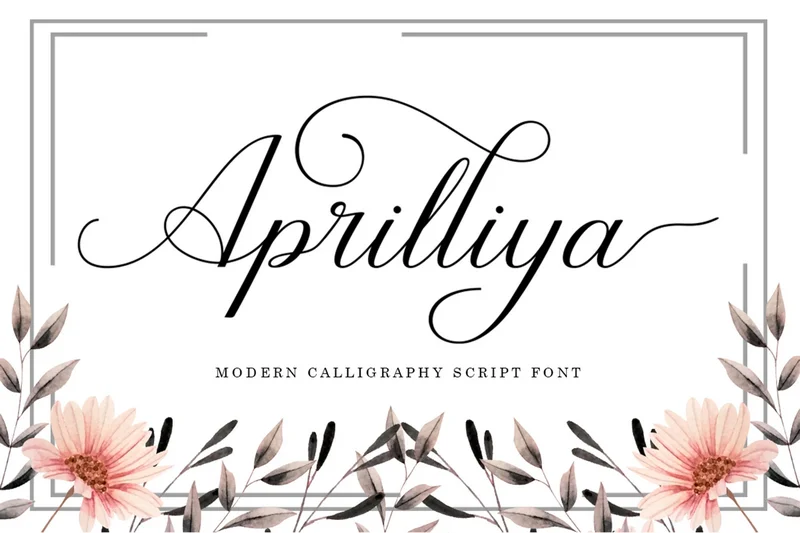
Aprilliya
Aprilliya is a modern calligraphy script font that dances on every line. Designed with elegance and a personal touch, this font features naturally flowing characters that create a luxurious yet warm impression. Each letter connects beautifully, making it a top choice for projects that require a touch of beauty.
This font is ideal for various design needs such as wedding invitations, branding and logos, fashion design, quotes, stationery, and social media content. Make your designs unforgettable with the elegance of Aprilliya.